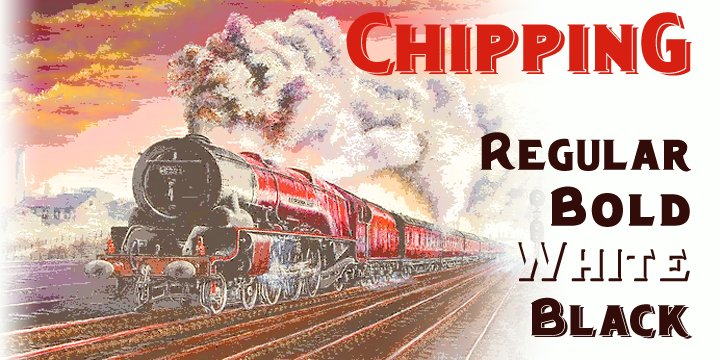
Chipping is a brand new face inspired by Edwardian and 1920s letterforms.
It’s good for clear and legible headings which need a gentle and unobtrusive period touch, and is the latest is Greater Albion’s line of faces to explore the ‘small capitals’ idea. You will see a broad similarity with our Chipperly family, and the two work well together in combined projects.
Four faces are offered: regular and bold, as well as Black with a heavy drop shadow and white which explores the idea of ‘whitespace’ design.